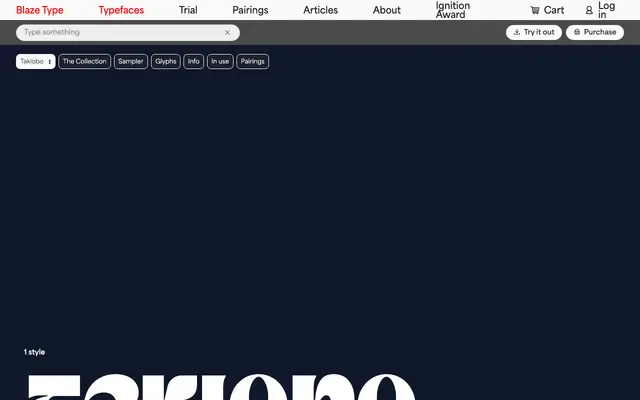
Taklobo
A single-style heavy unicase display serif by Jad Maza, whose letterforms draw from the organic curves of Philippine giant clams.
Designed in 2022, this typeface takes its proportions and silhouettes from the giant clam, a protected mollusc native to Philippine waters. Ascenders are rejected in favour of a uniform cap-line-aligned unicase construction, producing a dense, majestic texture suited to splashy headlines and bold identity work. Available in a single Display style covering Latin European languages.
A heavy unicase display serif with a single style, designed with organic, bivalve-inspired curves and dense letterforms intended solely for large-scale headline use.